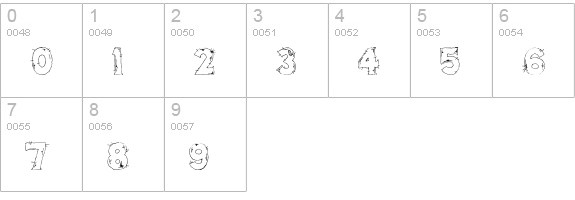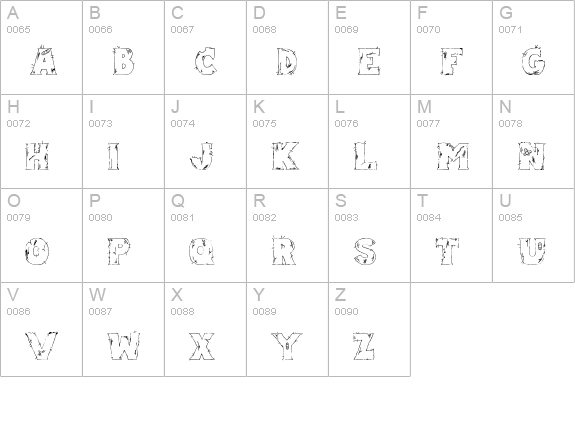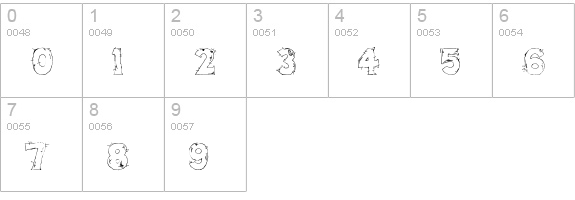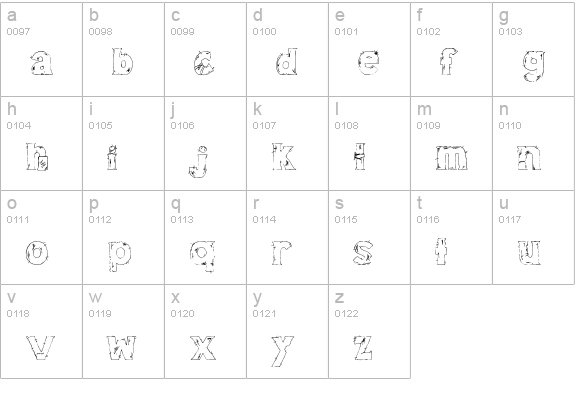
CK That Hurts Font Details
Introducing CK That Hurts font, a bold and expressive typeface that will make your designs stand out from the crowd. This unique font exudes a sense of edginess and creativity, perfect for projects that require a touch of attitude. With its sharp lines and distinctive style, CK That Hurts font is sure to make a lasting impression. The best part? CK That Hurts font is completely free to download at FontsMarket.com. Whether you're working on a personal project or a professional design, this versatile font will add a dynamic element to your work. Don't miss out on the opportunity to enhance your designs with the bold and impactful CK That Hurts font. Download it today and let your creativity soar.